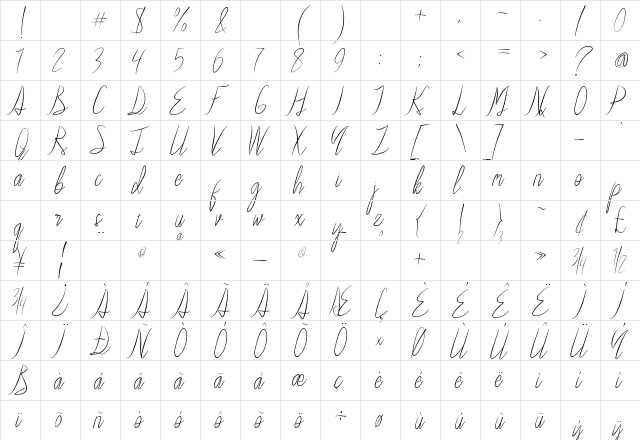
RalphBellagni Script
| Style | Script |
Design Context for RalphBellagni Typeface
RalphBellagni brings a calligraphic fluidity to the page — its connecting strokes and expressive curves give it an unmistakably human quality.